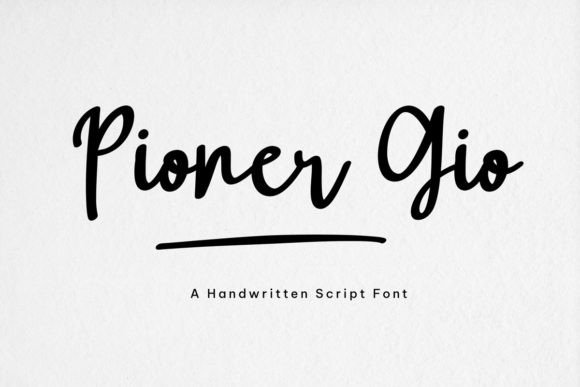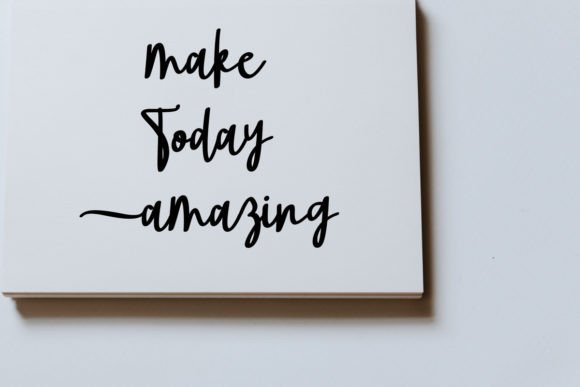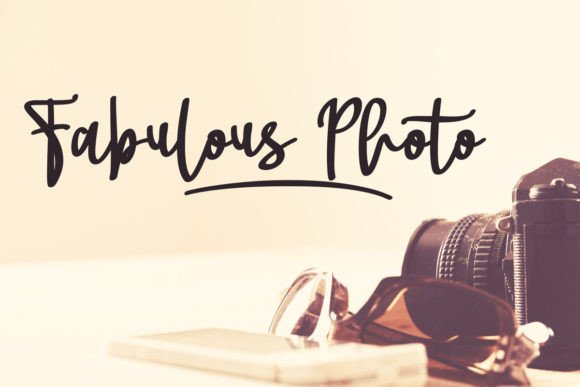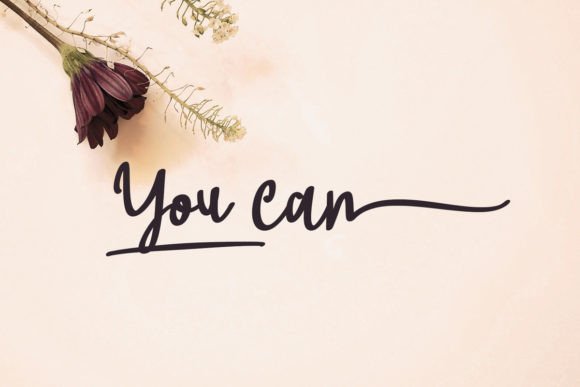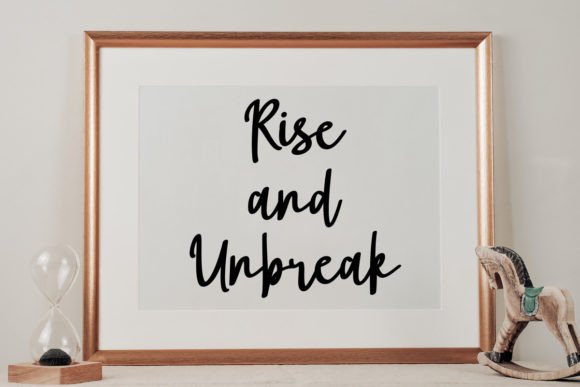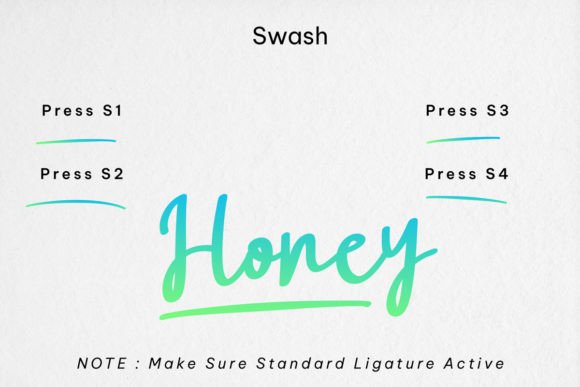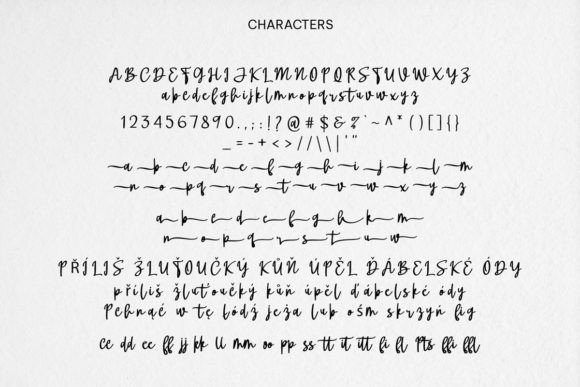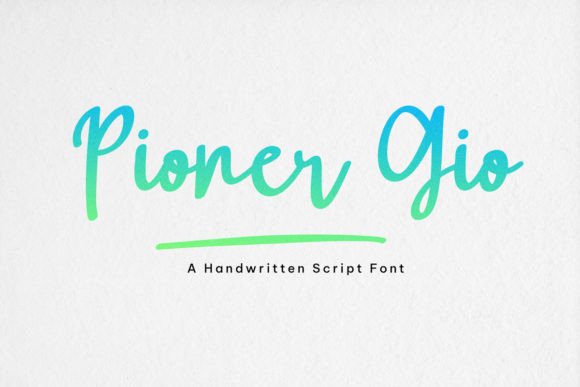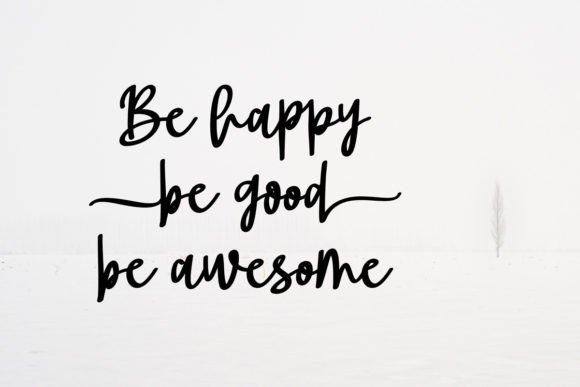
Pioner Gio Font
About Pioner Gio Font
“Pioner Gio is a delicate, elegant, and gracefully flowing handwritten font, featuring beautiful and well-balanced characters that seamlessly blend into a variety of design concepts. The font’s versatility allows it to complement a wide pool of designs, adding a touch of sophistication to each project. Notably, Pioner Gio is PUA encoded, providing convenient access to all its glyphs and swashes, making it an accessible and user-friendly choice for designers.
The charm of Pioner Gio is evident in its delicate strokes and flowing script. Each letter is meticulously crafted, contributing to a sense of elegance and refinement that makes this font a standout choice for projects that demand a touch of sophistication.
Its PUA encoding enhances the accessibility of Pioner Gio, allowing designers to easily access its full range of glyphs and swashes. This feature makes the font user-friendly, providing the flexibility needed to tailor the design to specific creative visions.
Whether you’re working on invitations, branding materials, or any other creative endeavor, Pioner Gio stands as a versatile and refined companion. Its distinct and well-balanced characters ensure that your designs maintain a timeless and elegant quality.
Imagine Pioner Gio enhancing your designs, adding a delicate and elegant touch to each project. Its flowing script becomes a defining element, setting your creations apart and infusing them with a sense of sophistication.
As you explore the nuances of Pioner Gio, you’ll discover its potential to elevate ordinary projects into visual masterpieces. Let it be the muse for your creativity, guiding you to craft designs that resonate with a timeless and refined aesthetic. With Pioner Gio, every stroke becomes a brushstroke of elegance, making it a valuable asset for designers who appreciate the artistry of handwritten typography.”